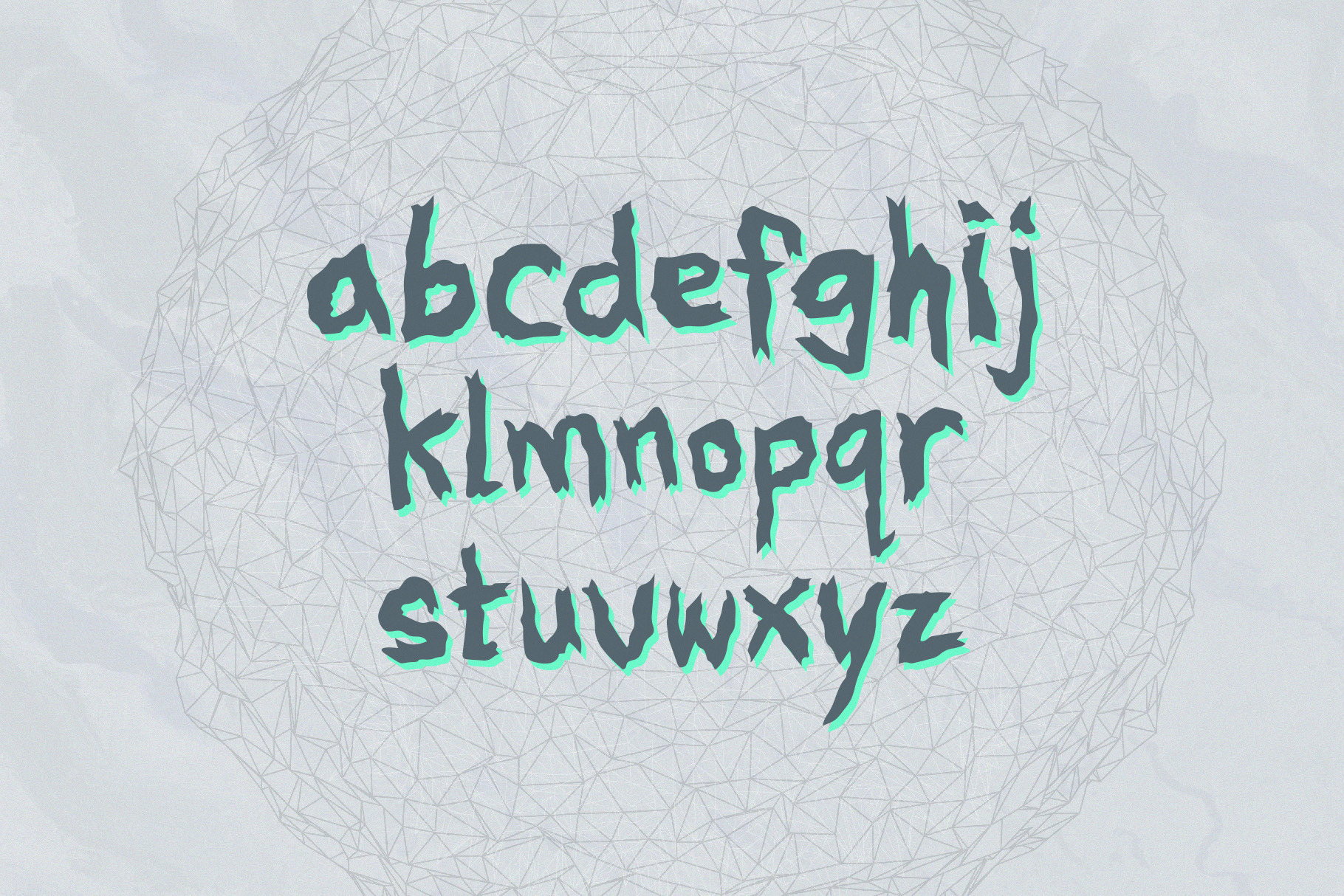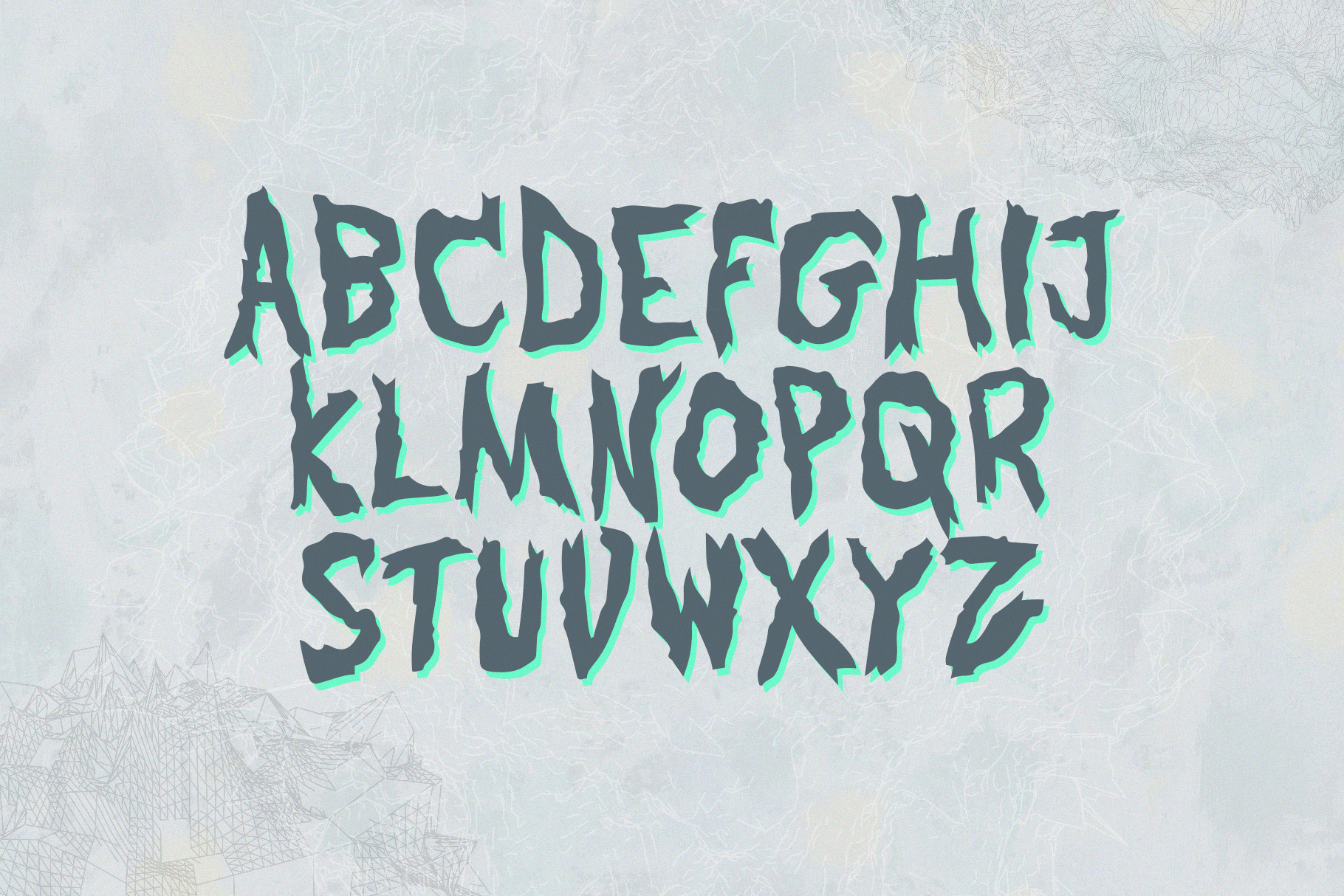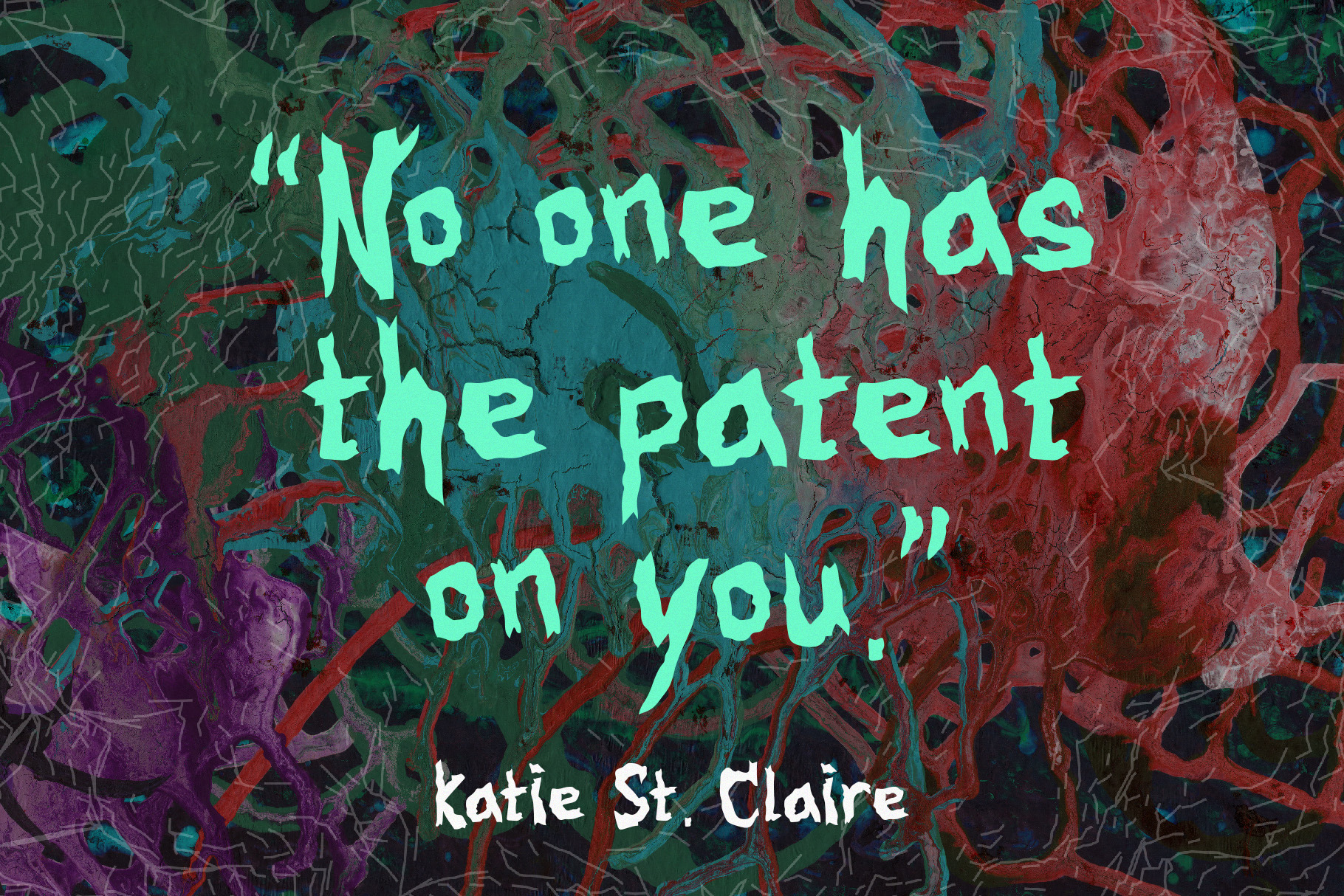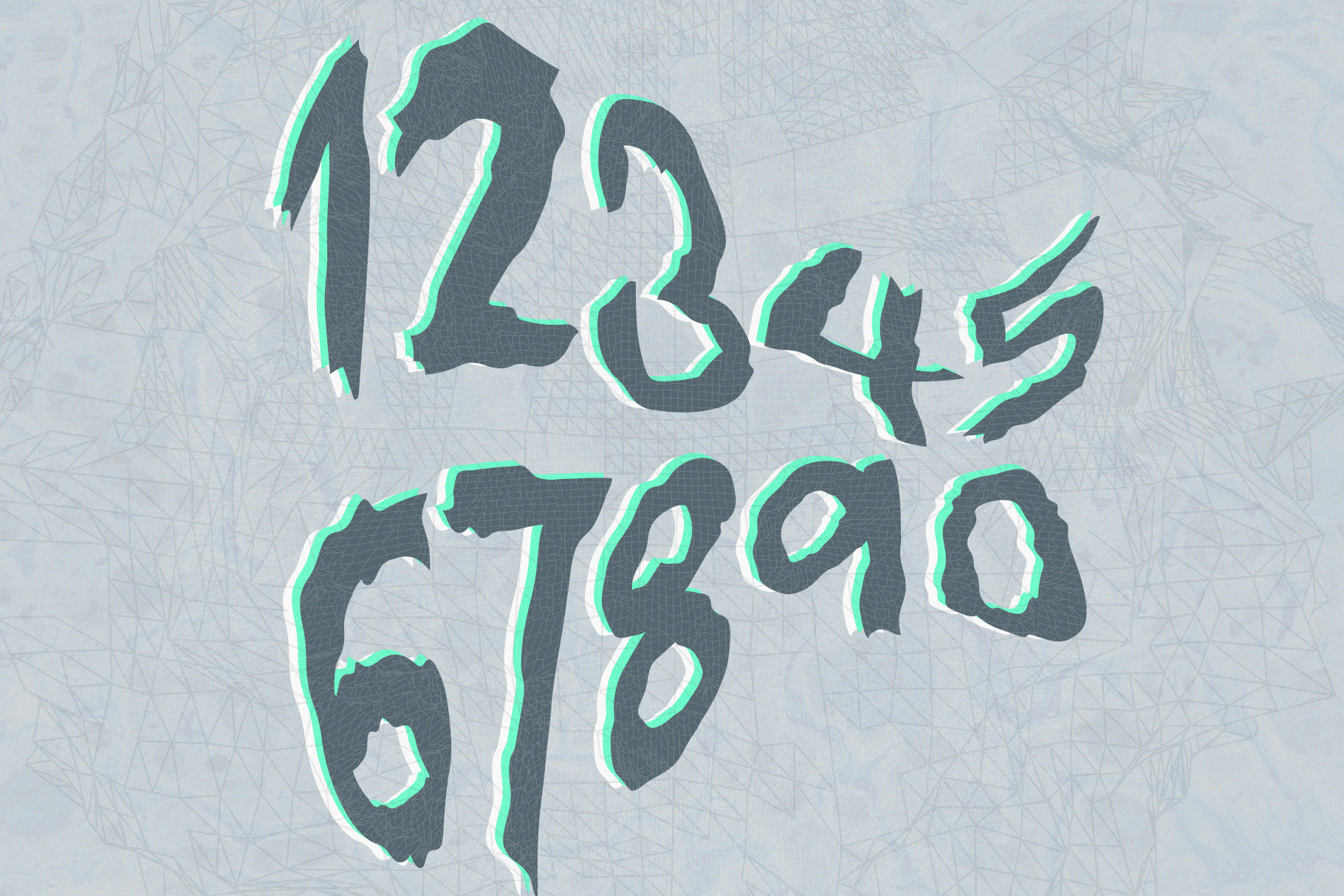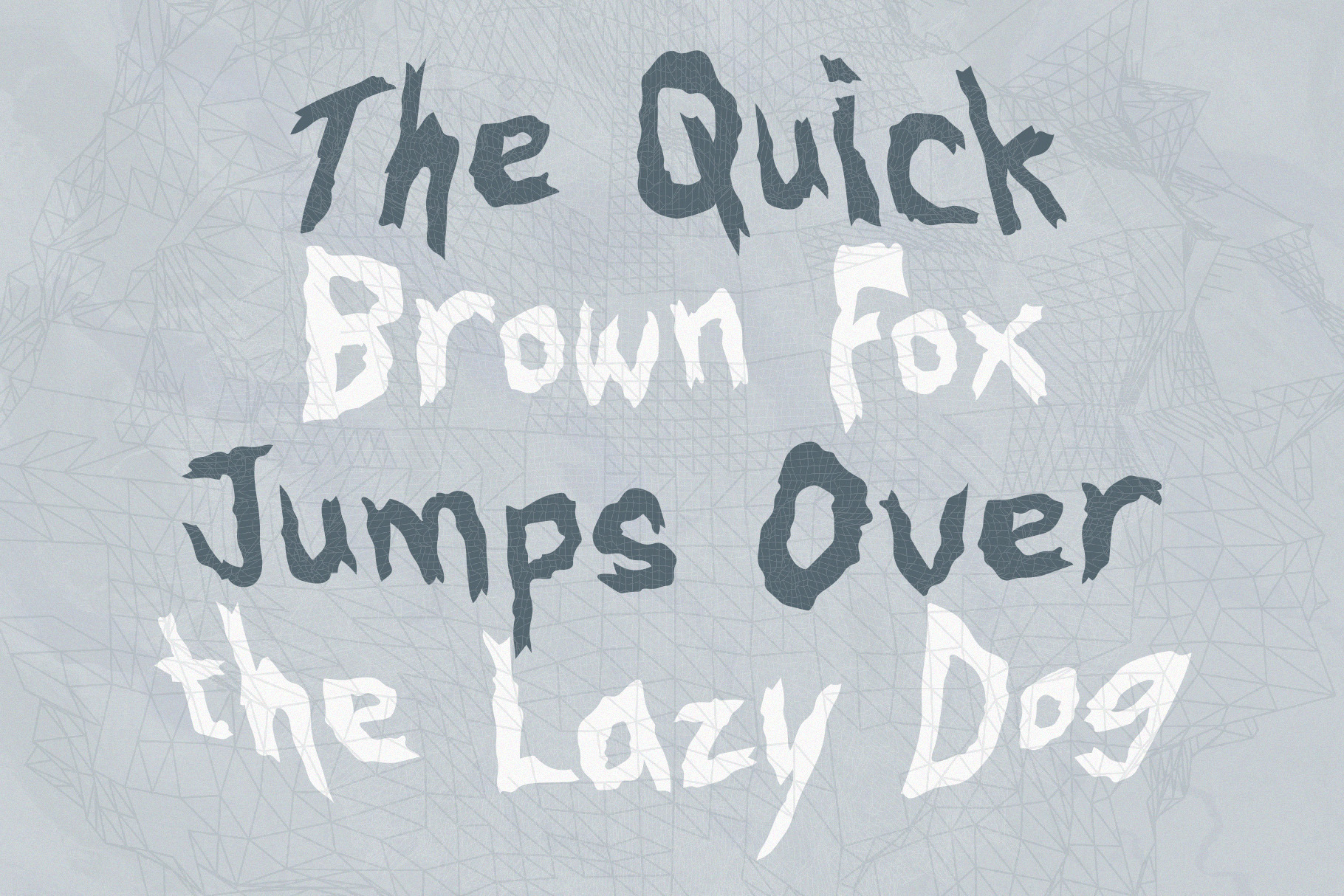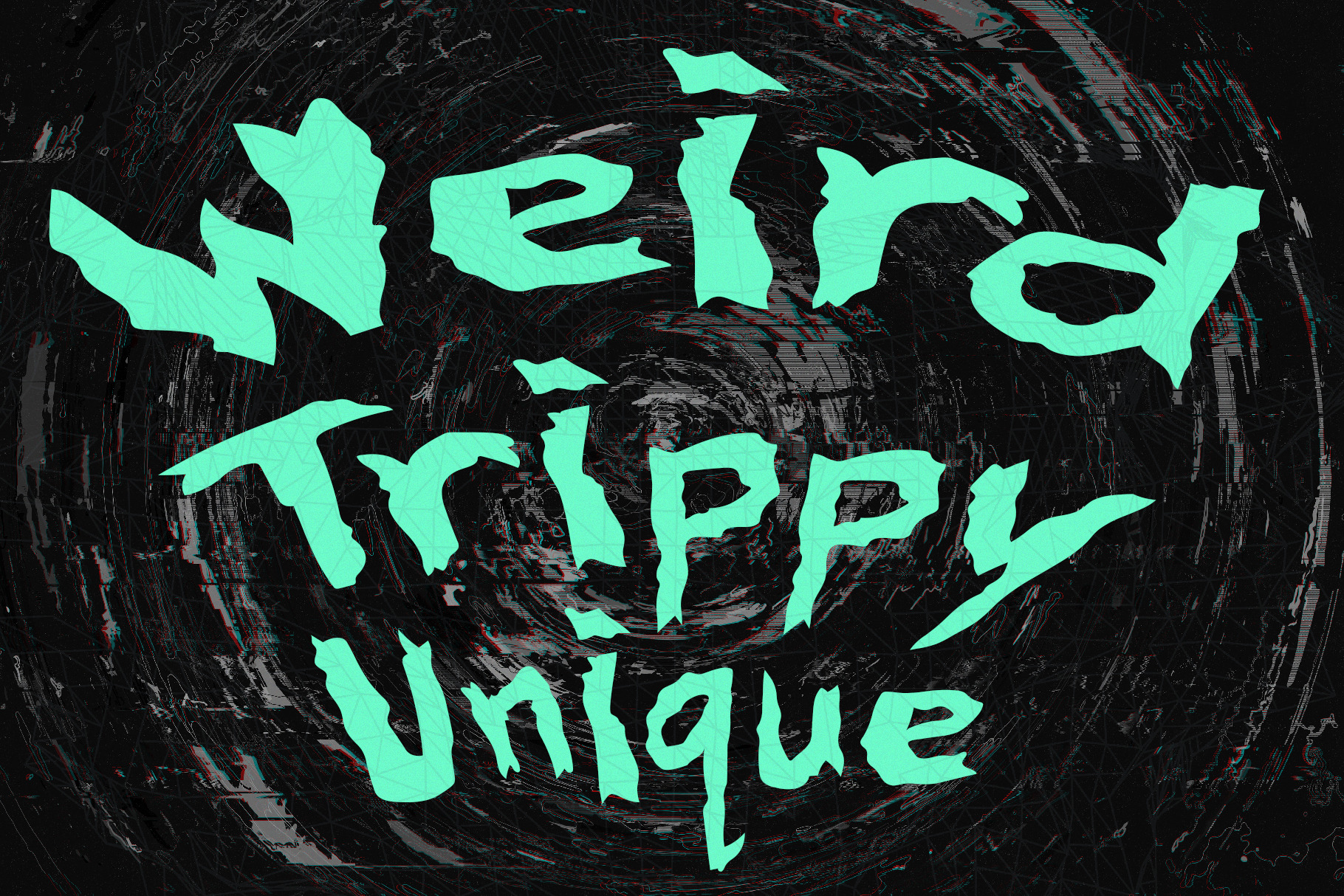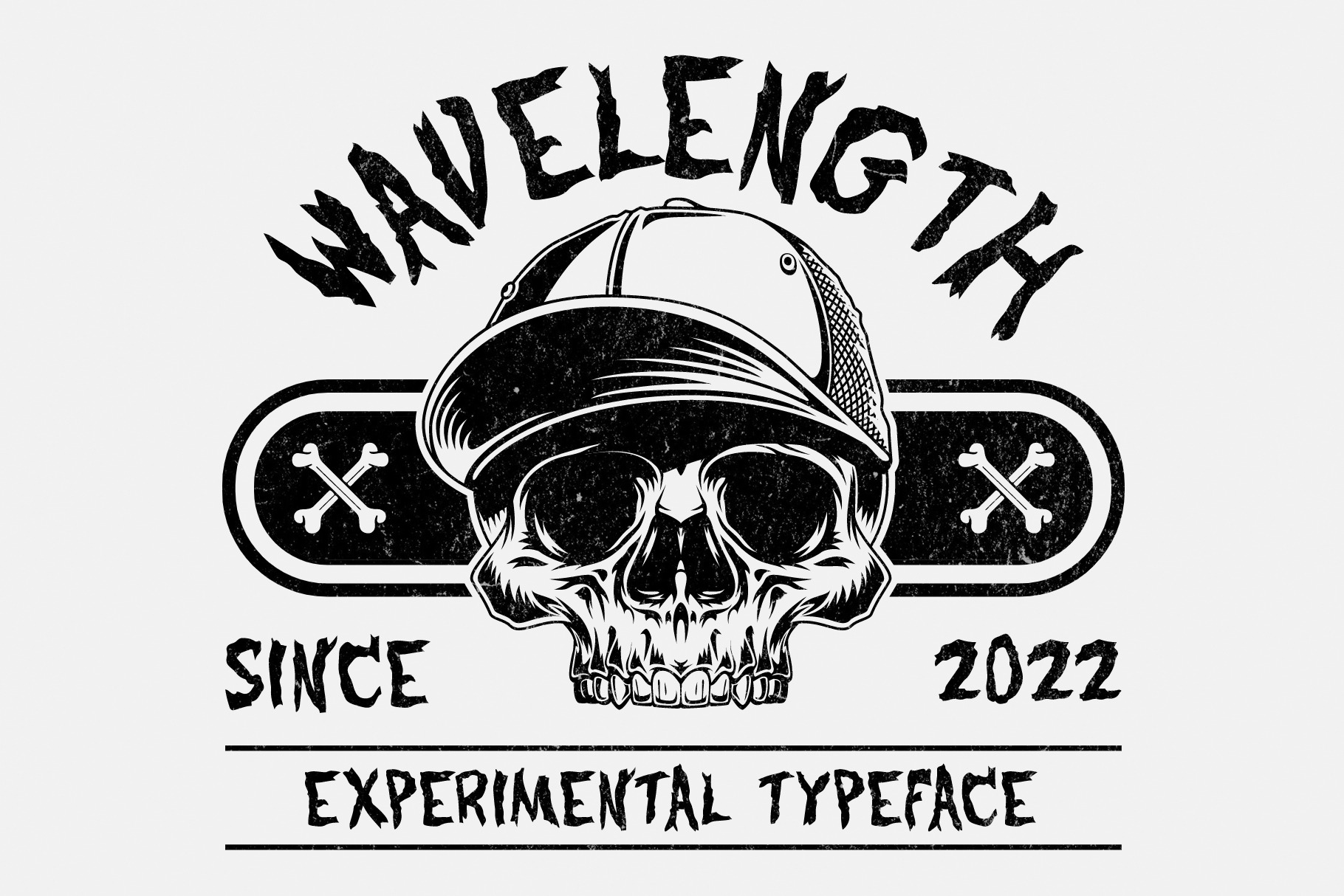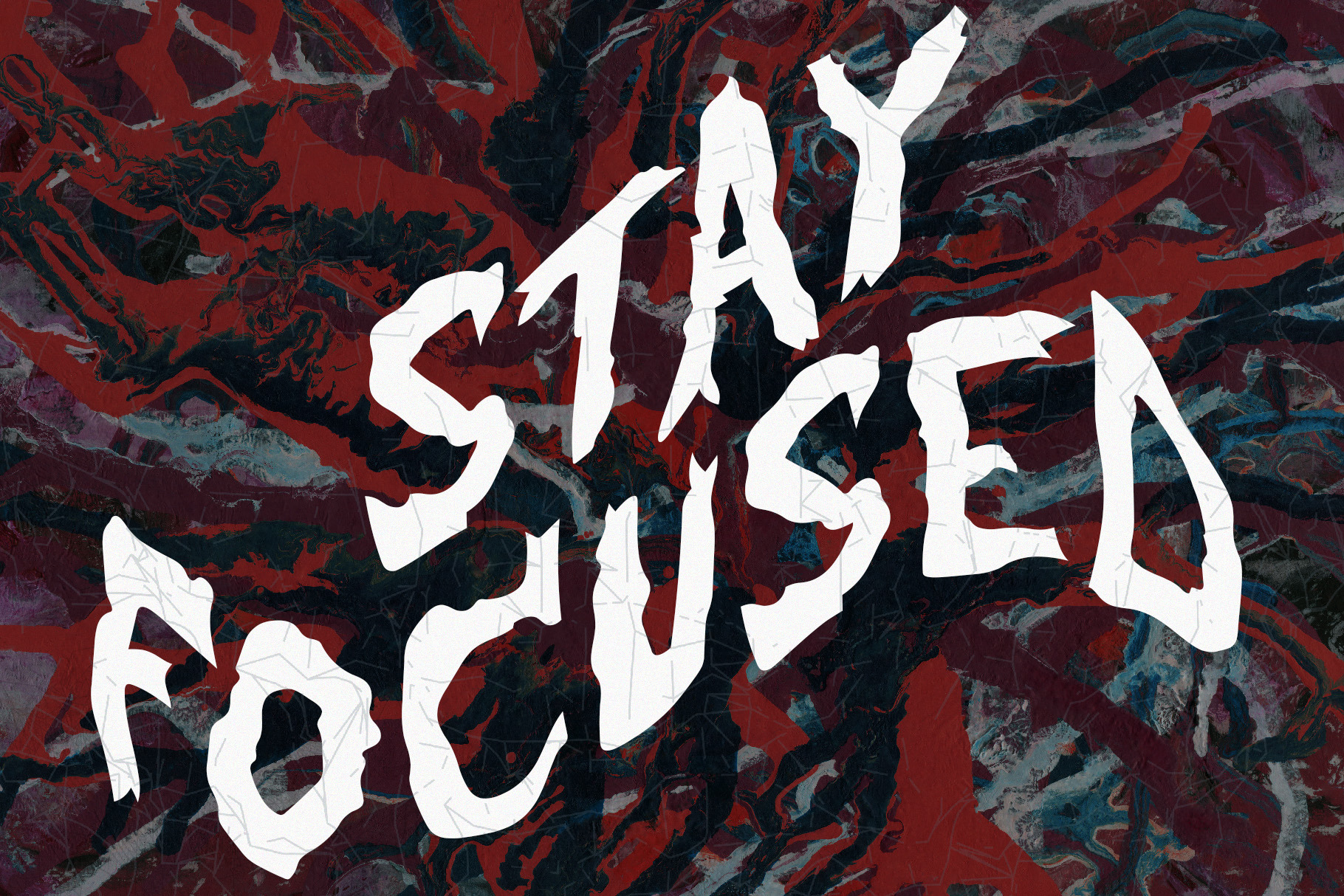
Wavelength was inspired by the "Rick and Morty" logo. This abstract display typeface grabs the reader's attention and keeps them there. It has an upper, lowercase display, numeral, and special characters. It is most suited as a decorative display font for editorials, album covers, posters, logos, web or packaging design. If you're looking for a typeface that's weird, trippy, and unique then Wavelength is for you! This product is included in the Creator Bundle. A collection of over 225 professional and unique fonts for your creative projects. A $3,825 value for just $89. Check it out here: https://crmrkt.com/qlp4r1 | Wavelength - Experimental Typeface | HipFonts